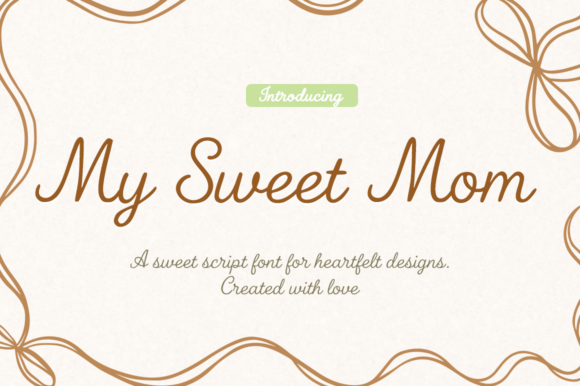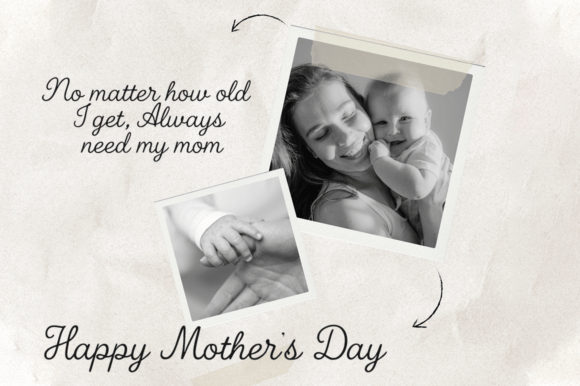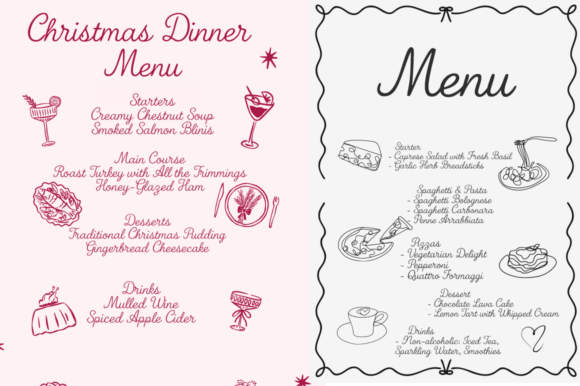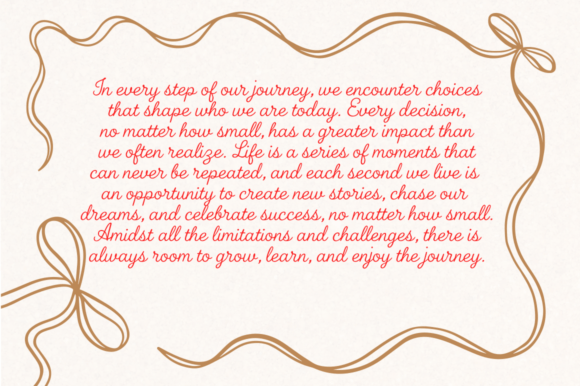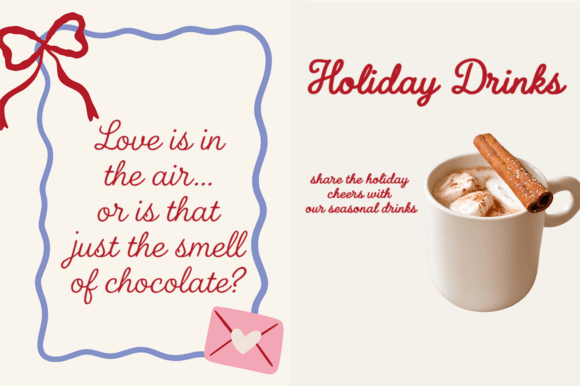
My Sweet Mom Font
With a graceful blend of elegance and tenderness, My Sweet Mom script font is an exquisite choice for projects exuding love and femininity. This smooth typeface, thriving in various artistic ventures, uniquely elevates greeting cards, invitations, and packaging with its heartwarming allure. My Sweet Mom font, effortlessly ties up your design story, adding warmth and sophistication for a visually rewarding result.